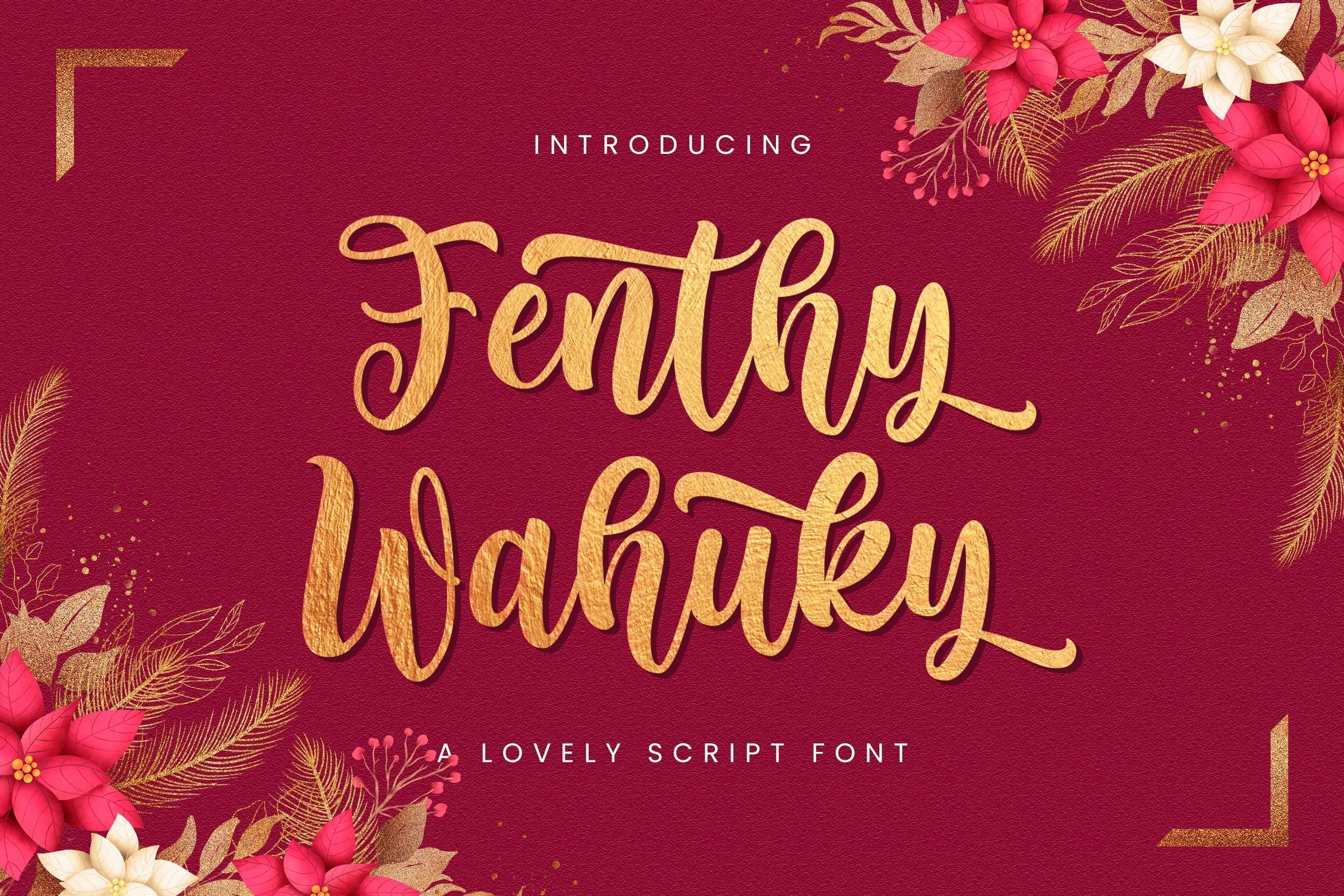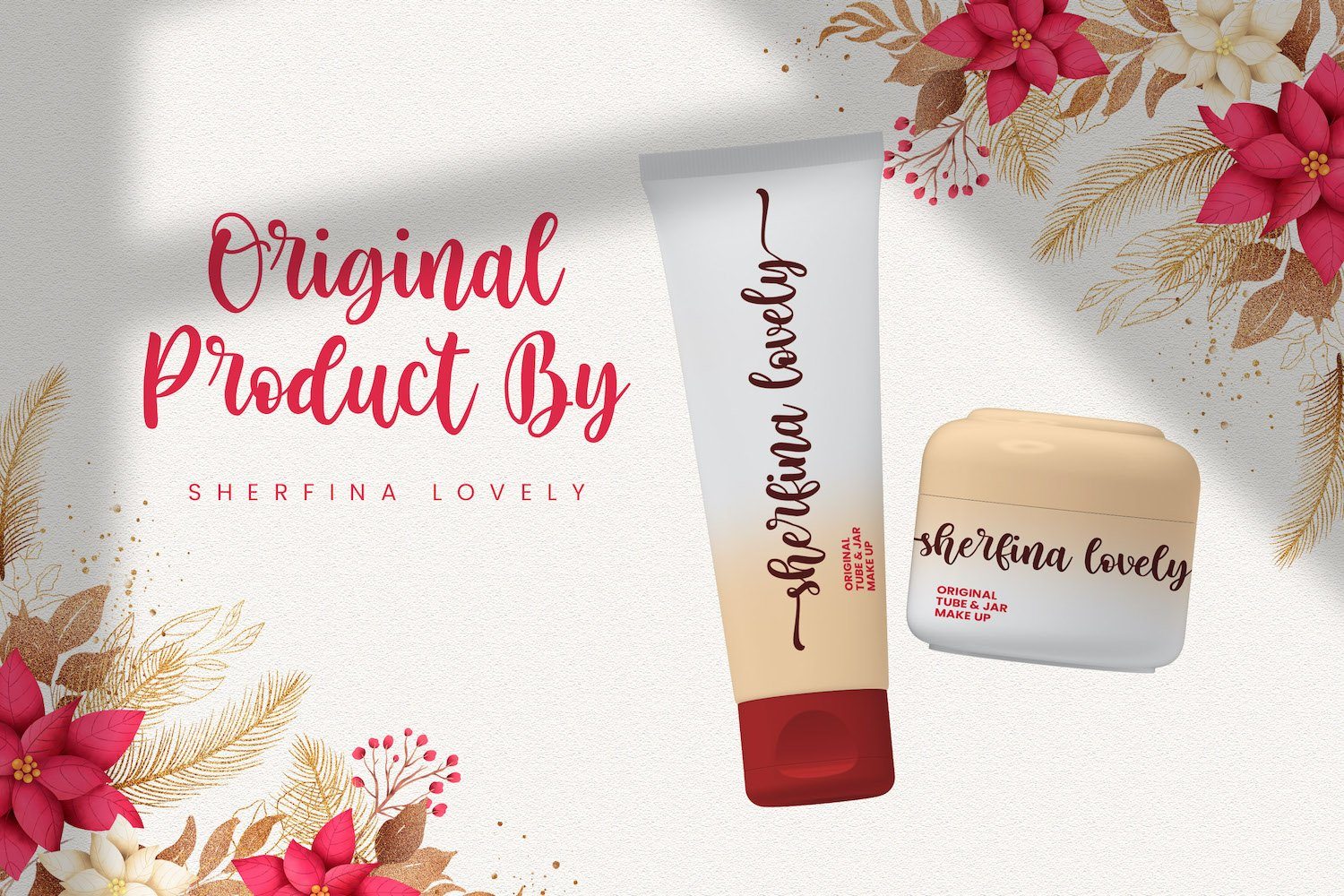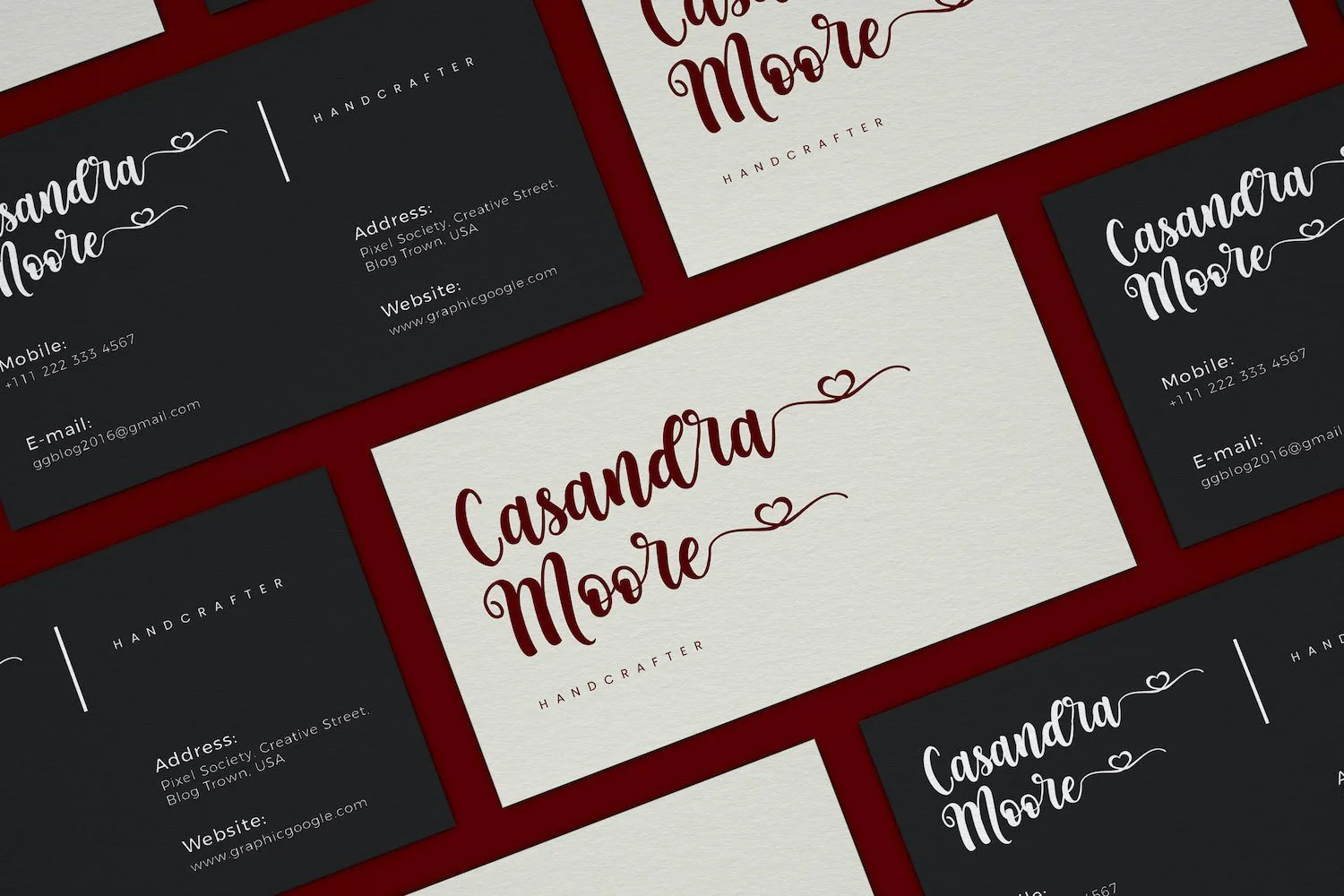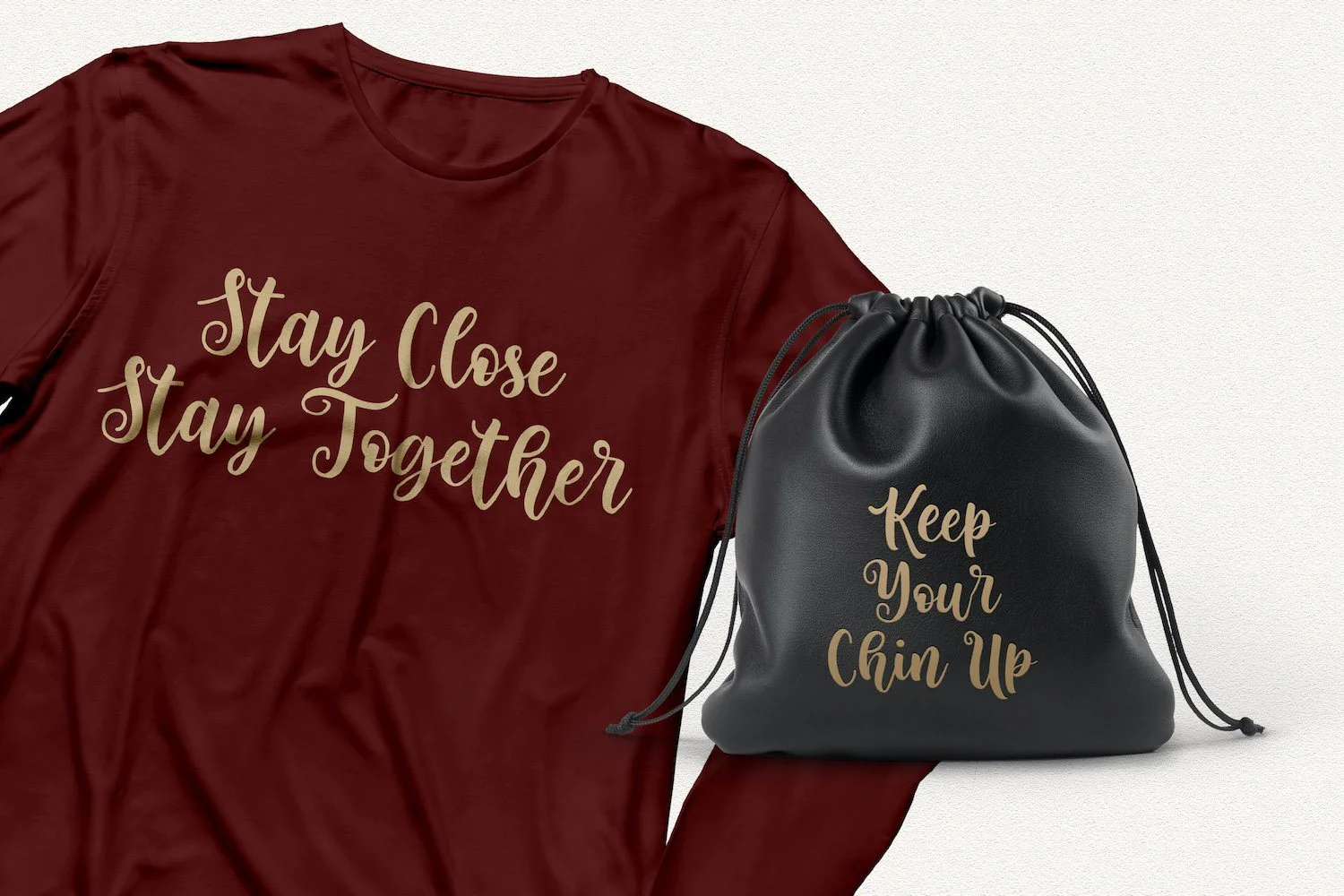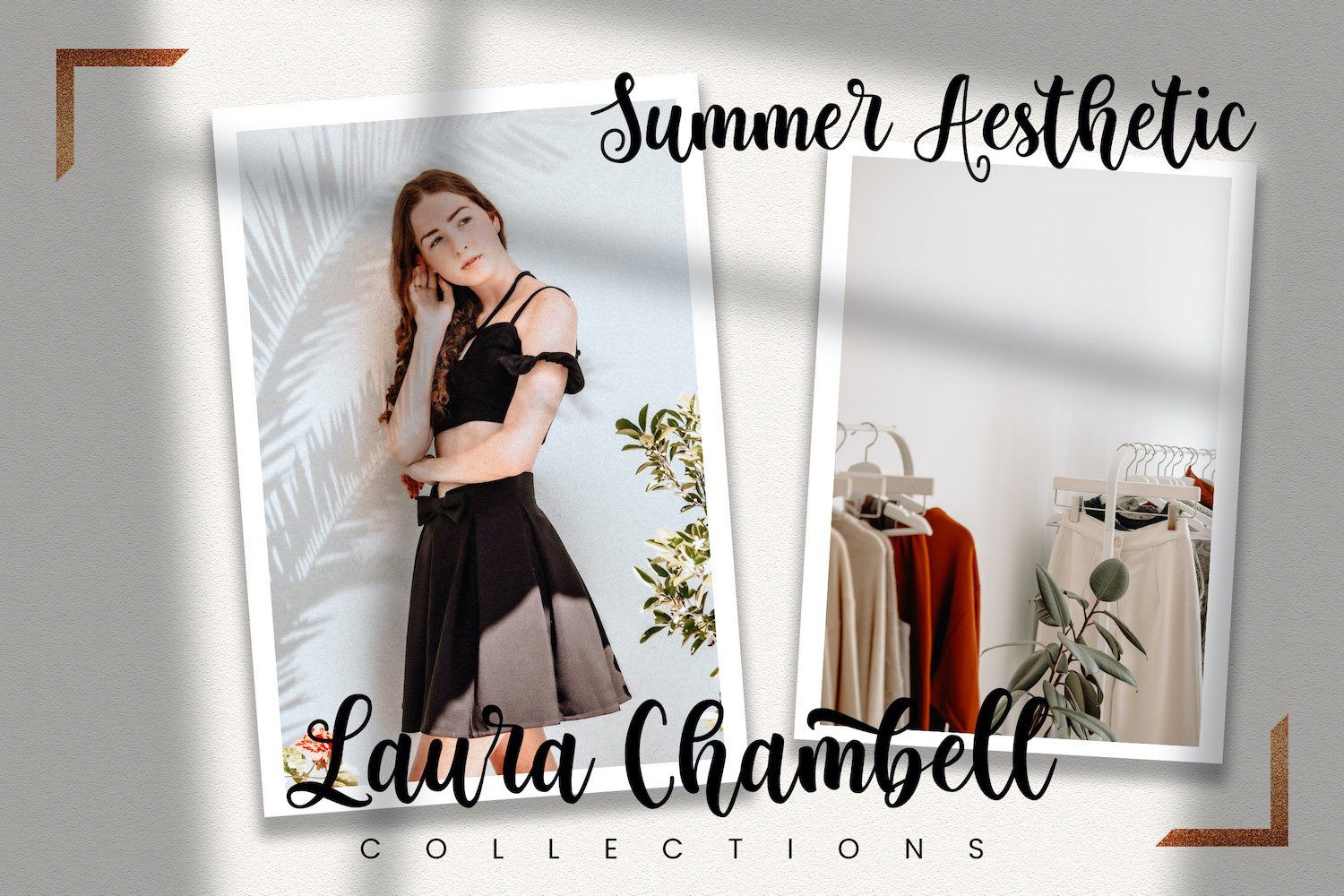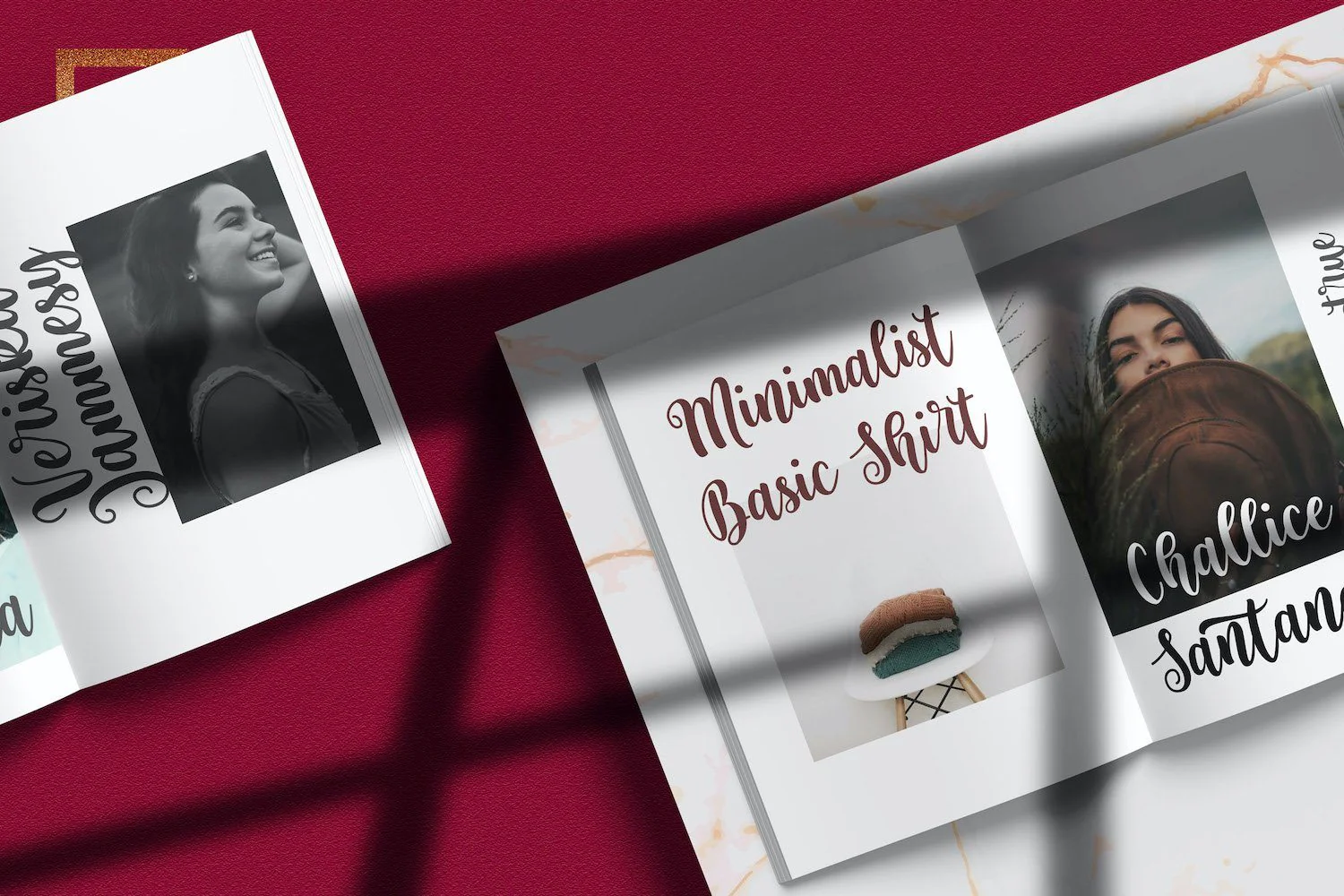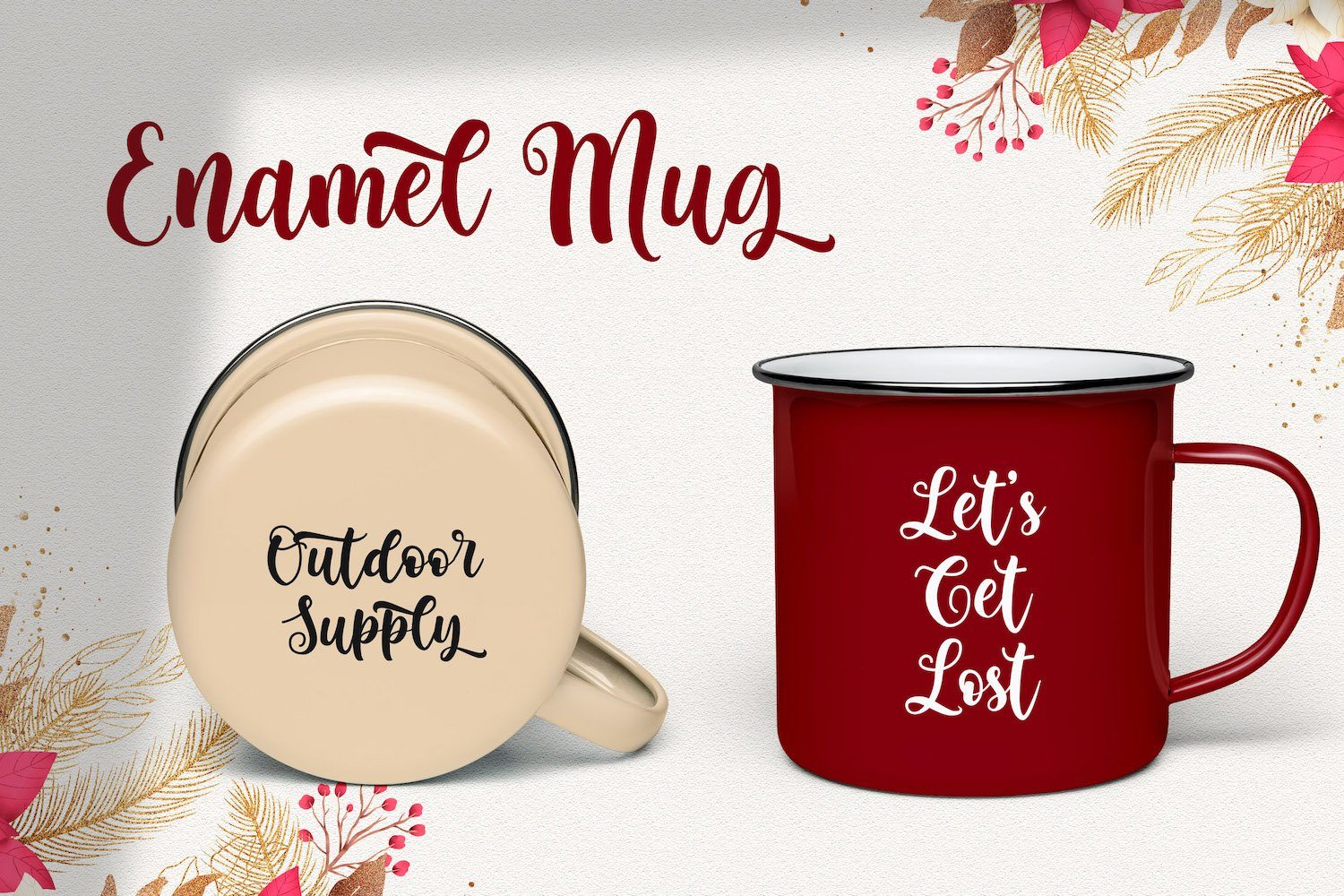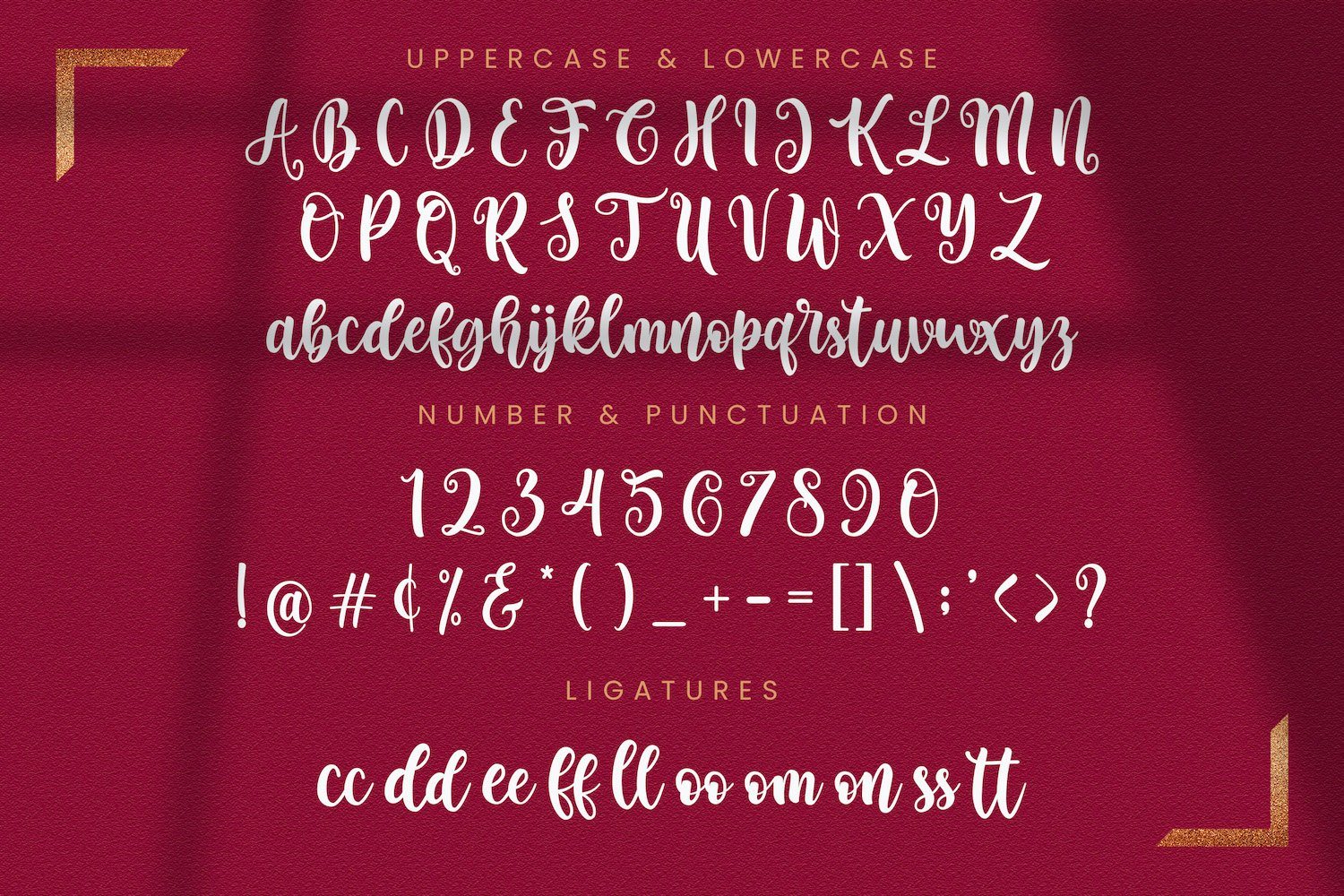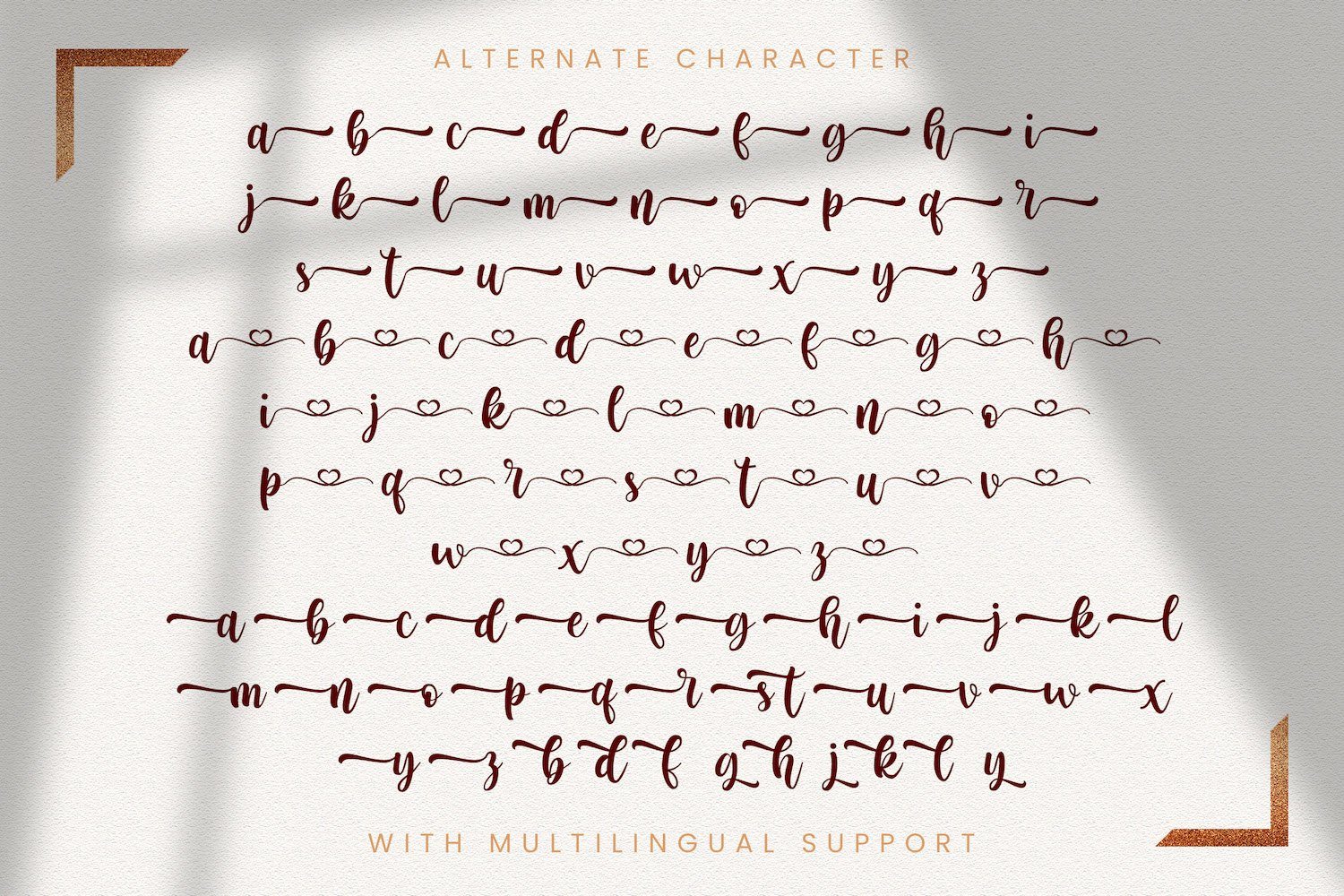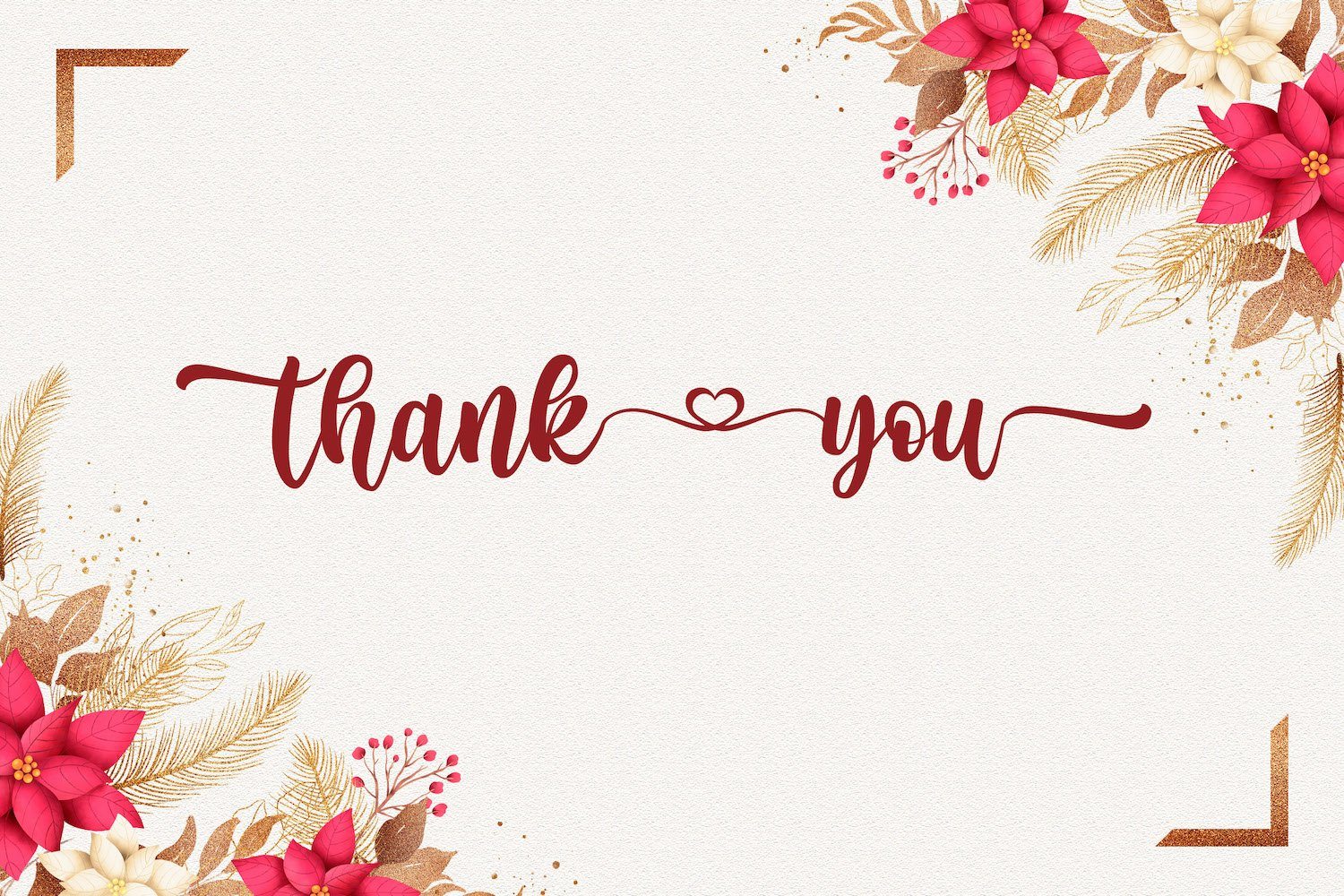
Fenthy Wahuky - Lovely Script Font
Introducing Fenthy Wahuky - Lovely Script Font
Fenthy Wahuky is an exquisite handwritten font, masterfully designed to become a true favorite. It maintains its classy calligraphic influences while feeling contemporary and fresh. Fall in love with it and bring your projects to the highest levels!
This font is PUA encoded which means you can access all of the glyphs and swashes with ease! It features a varying baseline, smooth lines, gorgeous glyphs and stunning alternates.